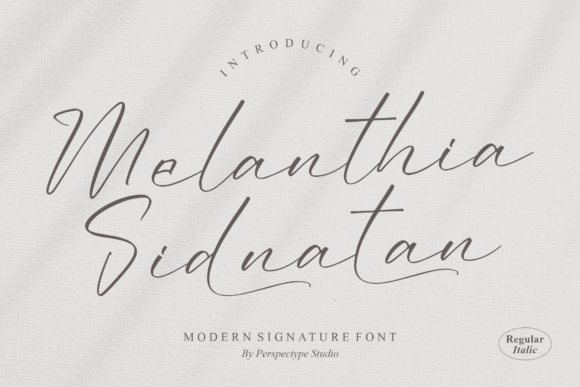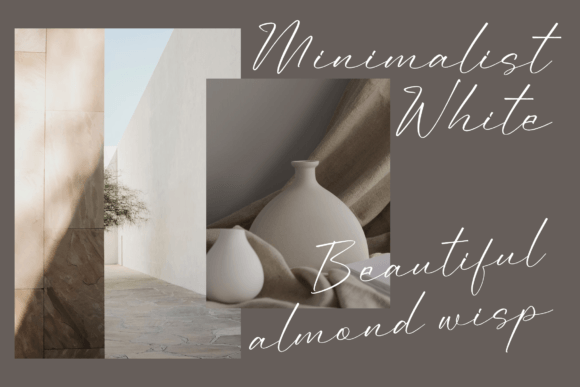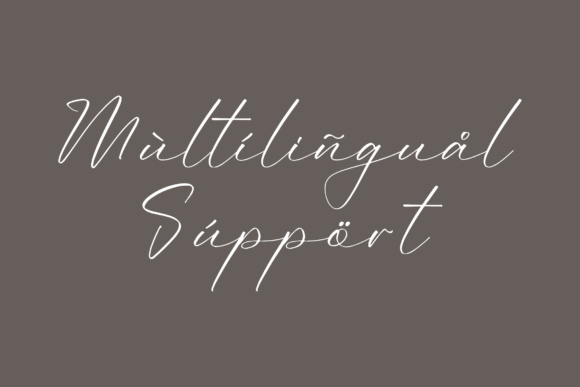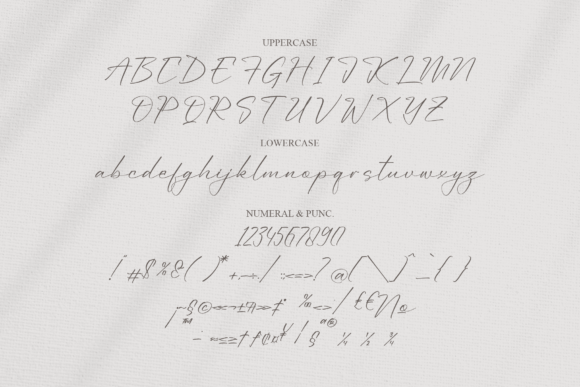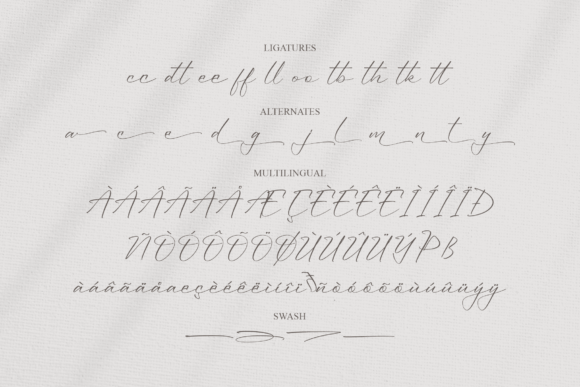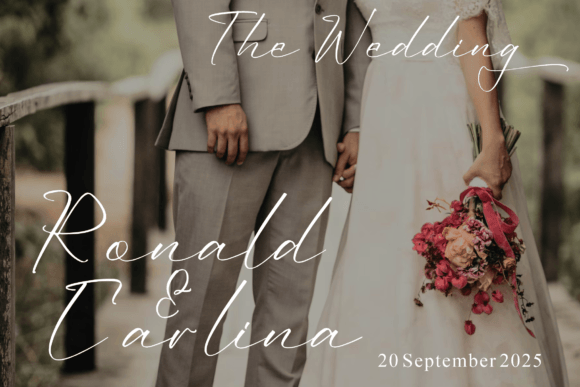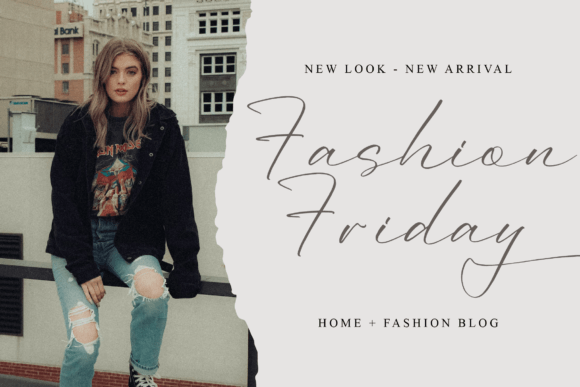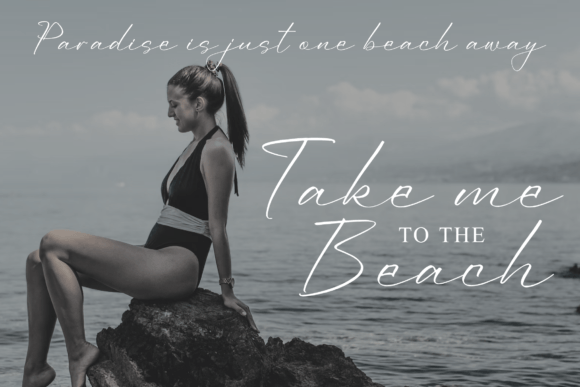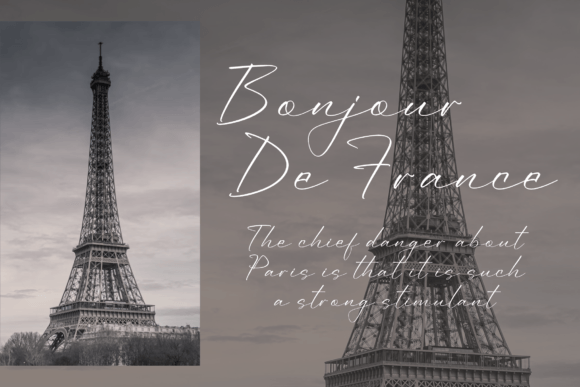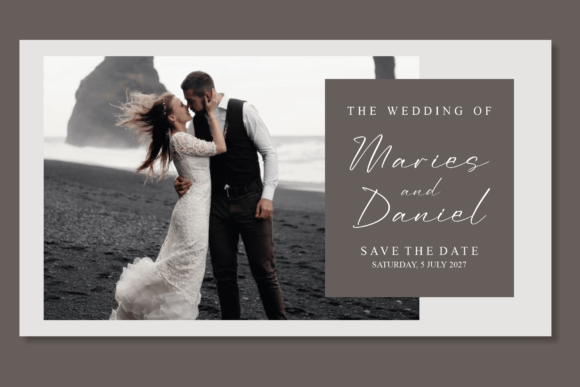
Melanthia Sidnatan Font
About Melanthia Sidnatan Font
Melanthia Sidnatan feels equally charming and elegant. It looks stunning on wedding invitations, thank you cards, quotes, greeting cards, logos, business cards, and every other design which needs a handwritten touch.